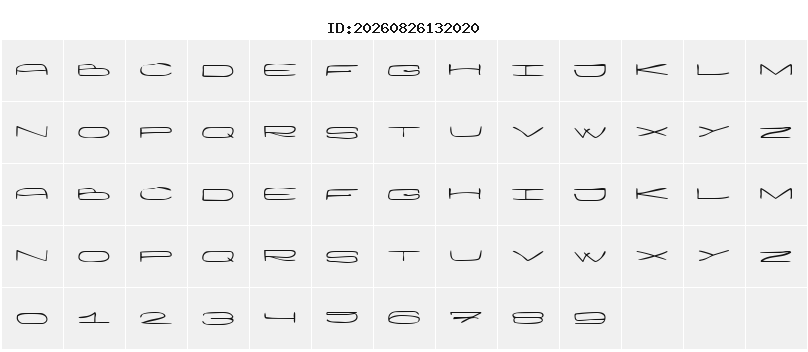
Wanker Preview
• Font Name: Wanker
• Font Style: Hand
• Font ID: Wanker Hand by vinterstille.dk
• Full Font Name: Wanker
• PostScript Name: WankerHand
• Character Count: 105
• Copyright: Characters so long you need to use two hands
• Designer: Klaus Nielsen
• Manufacturer: fonts.vinterstille.dk
About Wanker.ttf
Wanker.ttf is a modern, elegant sans-serif font designed for ultimate readability and visual harmony. Perfect for branding, headlines, web design, and print materials.